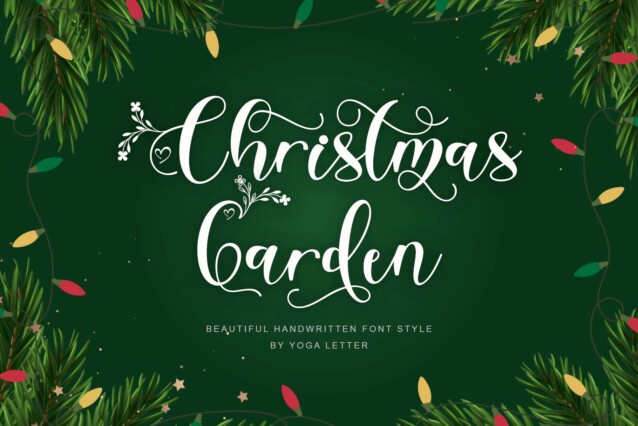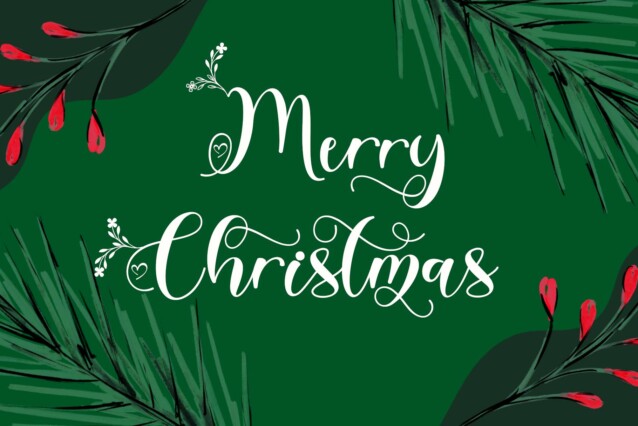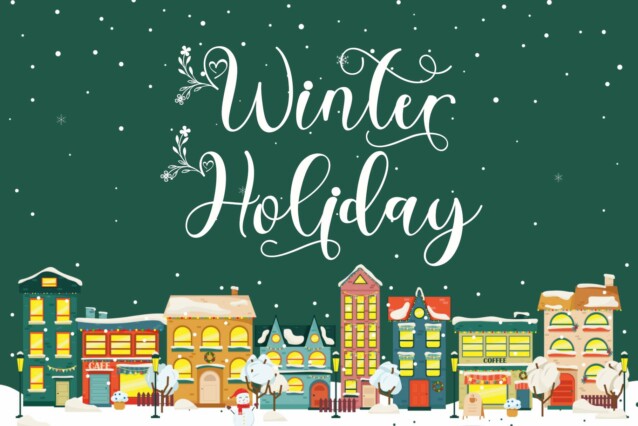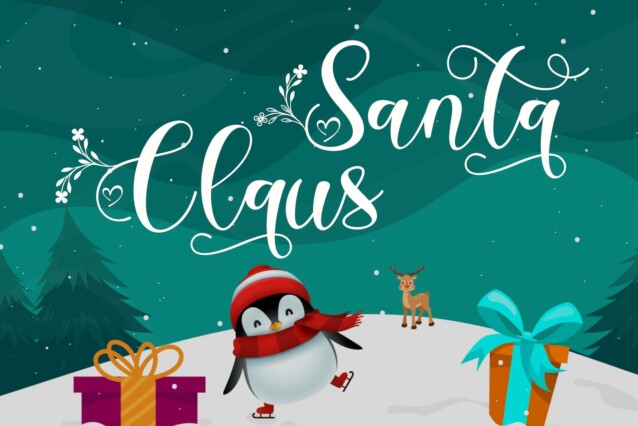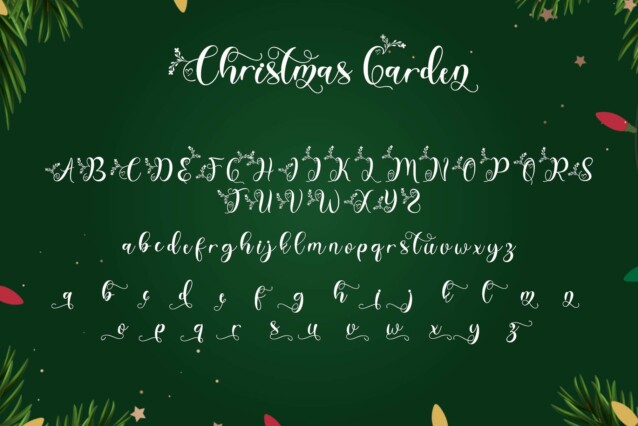
Christmas Garden Script Font
Christmas Garden Script Font is a beautiful and elegant handwritten font. This font is equipped with uppercase, lowercase, numerals, punctuation, ligatures, alternates, and multilingual support. Very suitable for Christmas, Valentine’s Day, winter, invitations, stickers, weddings, engagements, and others.
Yoga Letter